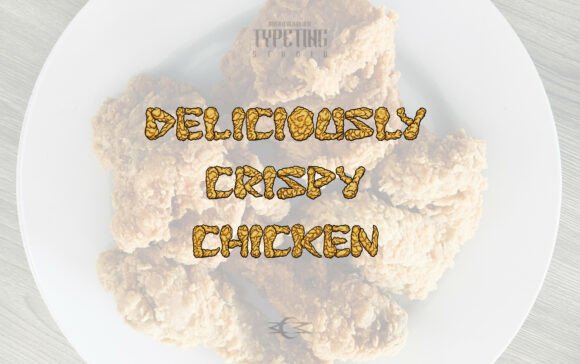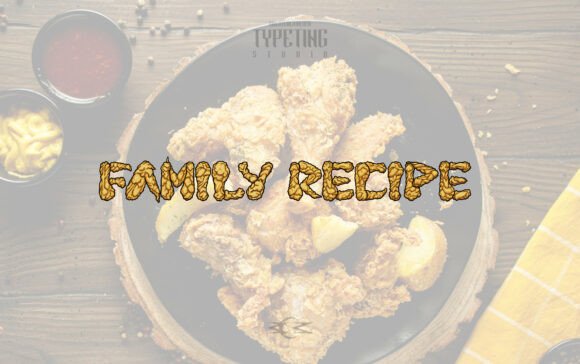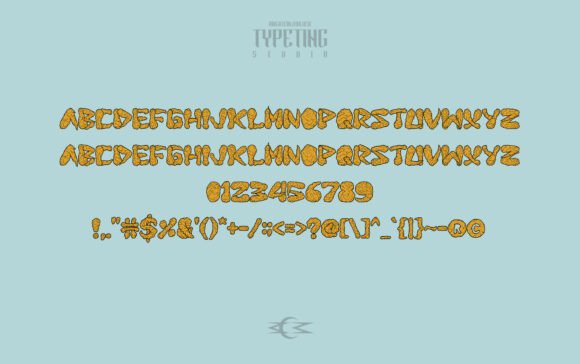
Fried Chicken Font: The Crispy Typeface that’s Clucking Its Way into Design
Are you tired of using the same old fonts for your culinary branding, posters, and creative content? Look no further than the Fried Chicken Font, a unique and mouth-watering typeface that’s sure to make your designs stand out from the crowd. Inspired by the texture of crispy fried chicken, this font creates a fun, bold, and appetizing impression that’s perfect for designers and crafters looking to add a little extra flavor to their work.
The Story Behind the Fried Chicken Font
The Fried Chicken Font is a relatively new addition to the world of typography, but its impact is already being felt. Designed with the intention of capturing the essence of crispy, golden-brown fried chicken, this font is a true original. Its creators wanted to bring a sense of playfulness and whimsy to the world of design, and they’ve certainly succeeded. Whether you’re working on a branding project for a restaurant, a poster for a food festival, or simply want to add some personality to your social media graphics, the Fried Chicken Font is an excellent choice.
What Makes the Fried Chicken Font So Special?
So, what sets the Fried Chicken Font apart from other typefaces out there? Here are just a few of its standout features:
- Unique Texture: The Fried Chicken Font’s texture is inspired by the crispy, crunchy exterior of fried chicken. This gives it a tactile quality that’s hard to find in other fonts.
- Bold and Appetizing: This font is designed to grab attention and make a statement. Its bold, chunky letters are sure to make your designs stand out.
- Fun and Playful: The Fried Chicken Font is the perfect choice for designers who want to add a little humor or whimsy to their work.
- Highly Versatile: Whether you’re working on a branding project, a poster, or social media graphics, the Fried Chicken Font is a versatile choice that can be used in a wide range of applications.
How to Use the Fried Chicken Font in Your Designs
Now that we’ve covered what makes the Fried Chicken Font so special, let’s talk about how to use it in your designs. Here are a few ideas to get you started:
- Culinary Branding: Use the Fried Chicken Font to create eye-catching branding for restaurants, food trucks, or catering businesses.
- Posters and Flyers: Add some personality to your posters and flyers with the Fried Chicken Font. It’s perfect for advertising food festivals, cook-offs, or other culinary events.
- Social Media Graphics: Use the Fried Chicken Font to create engaging social media graphics that will make your followers’ mouths water.
- Packaging Design: Add a personal touch to your packaging design with the Fried Chicken Font. It’s a great way to make your products stand out on store shelves.
Tips for Working with the Fried Chicken Font
Here are a few tips to keep in mind when working with the Fried Chicken Font:
- Keep it Simple: While the Fried Chicken Font is bold and eye-catching, it’s best to keep your design simple and uncluttered. This will help your font really stand out.
- Experiment with Colors: The Fried Chicken Font looks great in a range of colors, from warm golden tones to bold brights. Experiment with different colors to find the perfect combination for your design.
- Mix and Match: Don’t be afraid to mix and match the Fried Chicken Font with other typefaces. This can add visual interest to your design and create a unique look.
The Fried Chicken Font is a game-changer for designers and crafters looking to add a little extra flavor to their work. Its unique texture, bold and appetizing appearance, and fun and playful personality make it the perfect choice for culinary branding, posters, and creative content. With its versatility and ease of use, it’s no wonder that the Fried Chicken Font is quickly becoming a favorite among designers. So why not give it a try and see how it can elevate your designs?